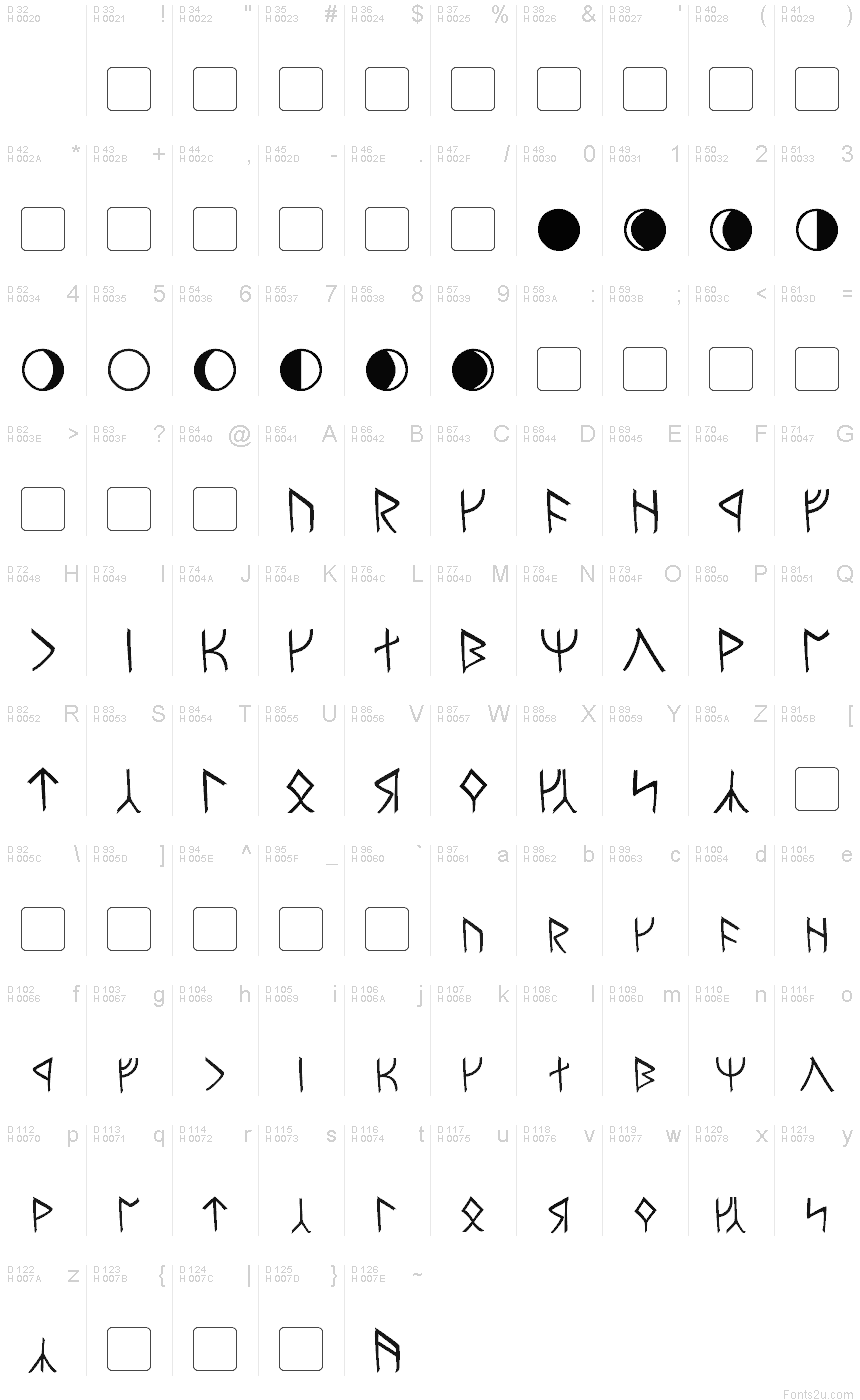
Moria by Neale Davidson is a free runic display font with a stark, hand-cut appearance. Tall, narrow symbols use uneven tapered strokes, sharp forks, and open angular forms. Diamond shapes recur throughout the alphabet.
Rooted in fantasy and archaic imagery, it suits role-playing games, book covers, event posters, and themed merchandise. The symbols can become carved inscriptions, map markings, or heraldic emblems rather than serving only as ordinary lettering.
This was my first font. It was based on an old sheet of press-on letters called “Stonehenge,” but I renamed it Moria because a font with that name already existed. It has been available since 2002.